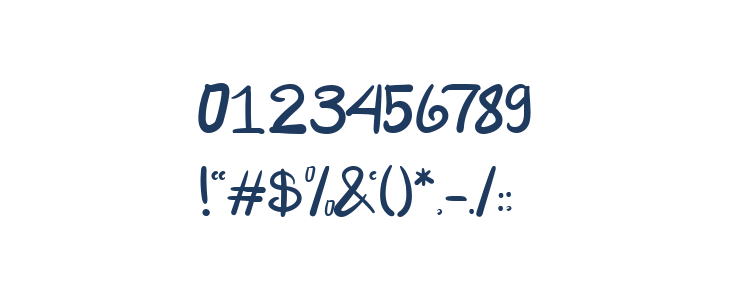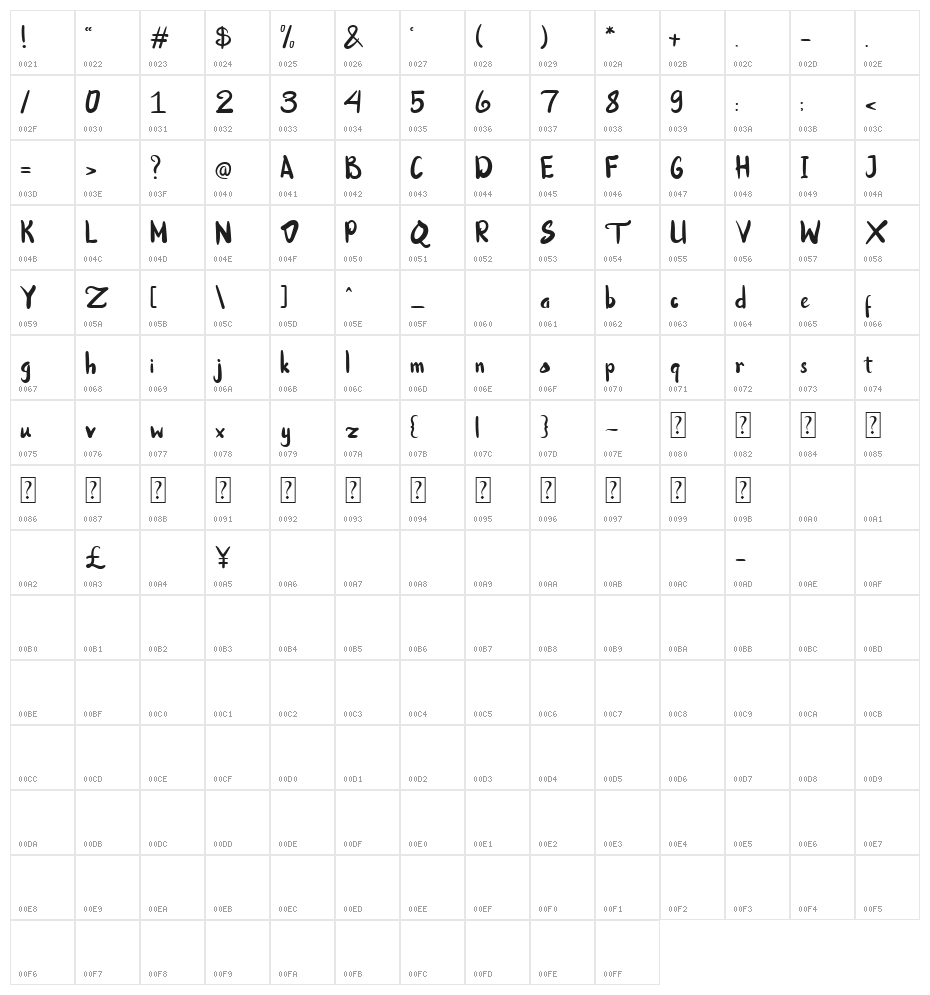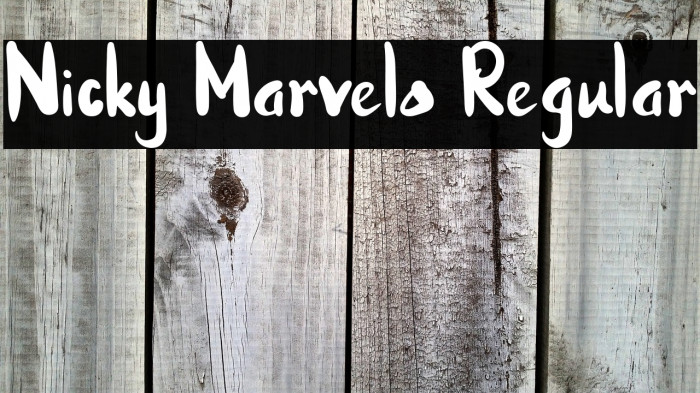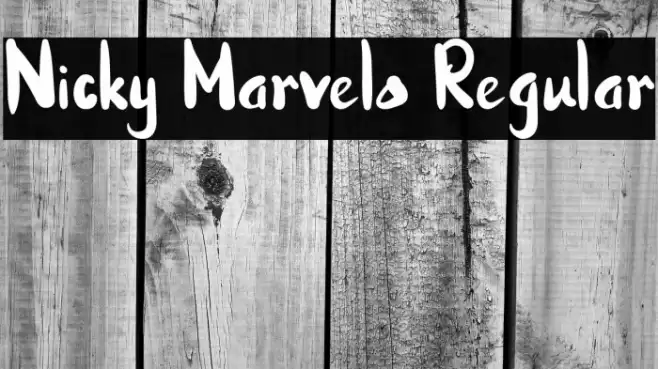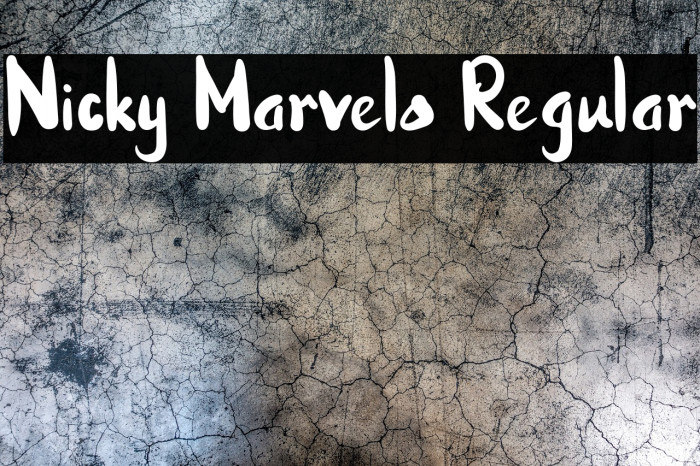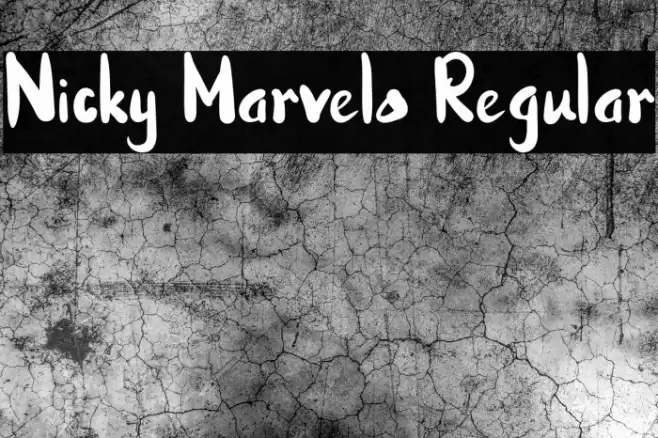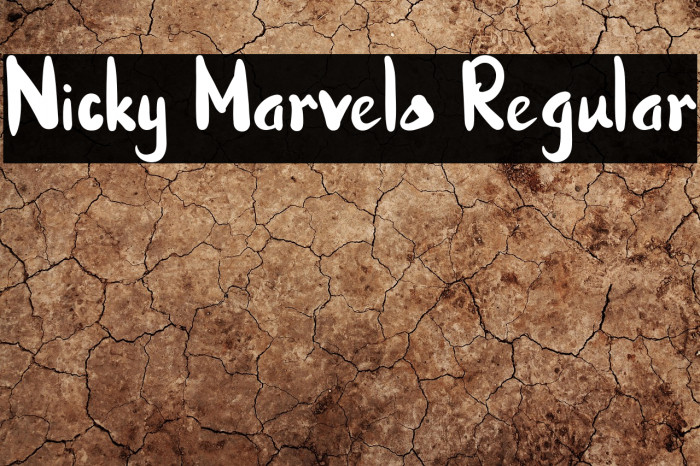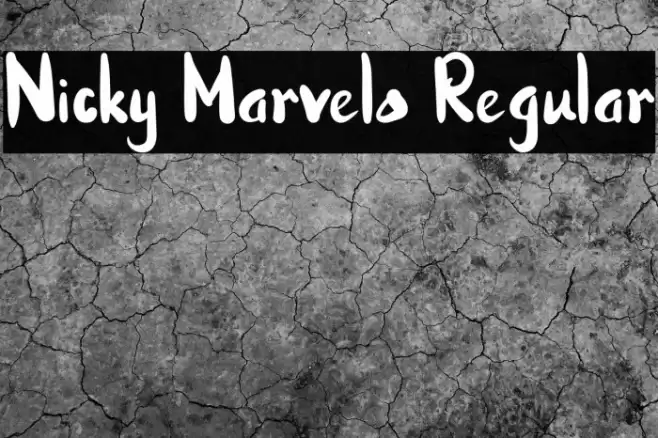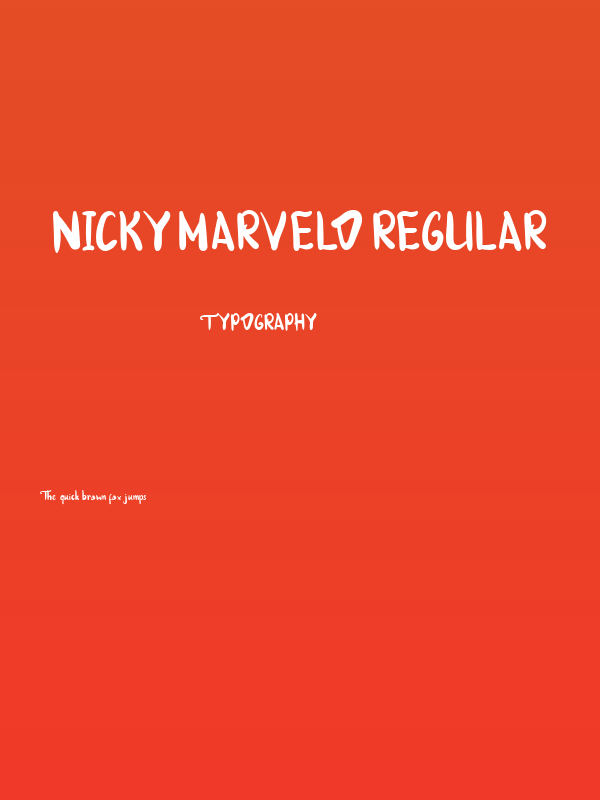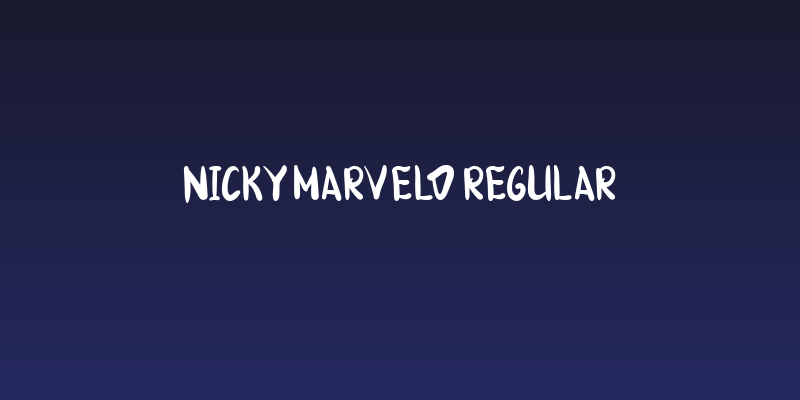
Nicky Marvelo Regular Font
Nicky Marvelo Regular Description
This font features a playful and bold handwritten style, characterized by its thick strokes and rounded edges. The uppercase letters are slightly taller than the lowercase, with a consistent stroke width that gives it a cohesive and friendly appearance. The numerals and special characters maintain the same playful aesthetic, making it suitable for creative and informal designs. The overall look is energetic and approachable, perfect for capturing attention in a fun and engaging way.
| Proposed Projects | Ideal for children's book covers, playful branding, greeting cards, and social media graphics. |